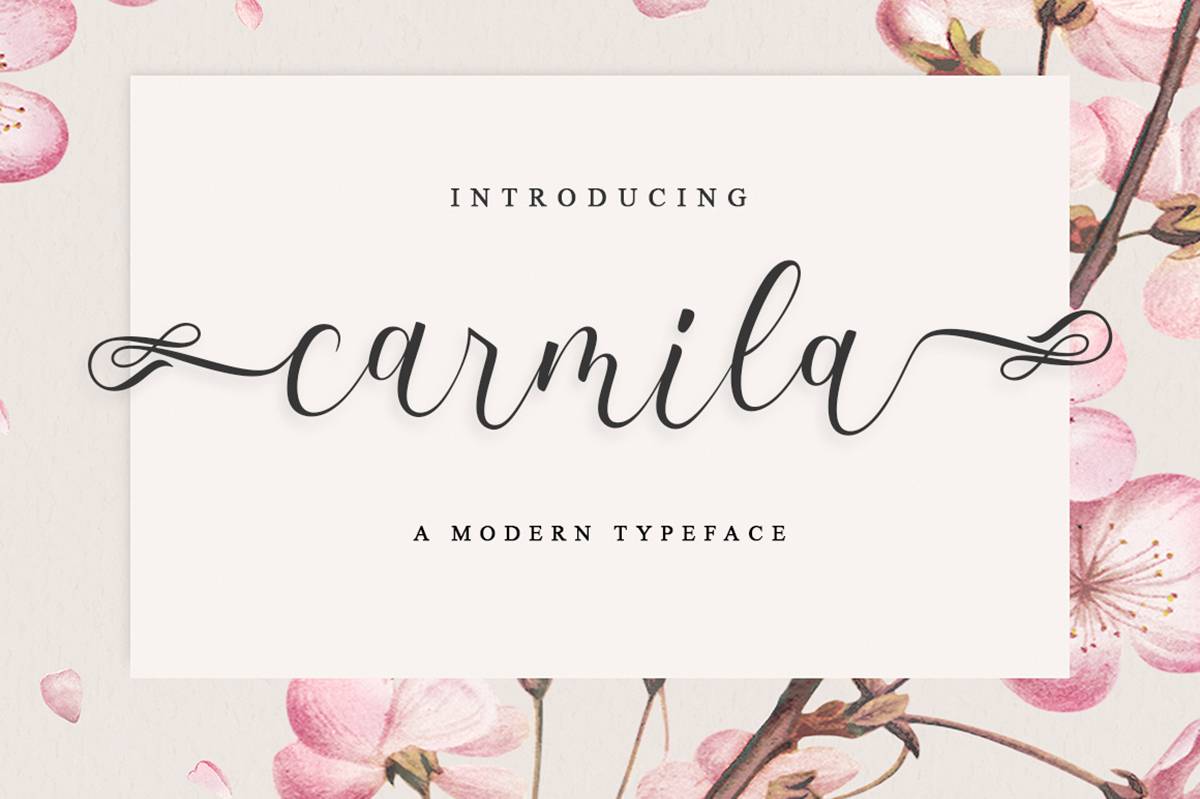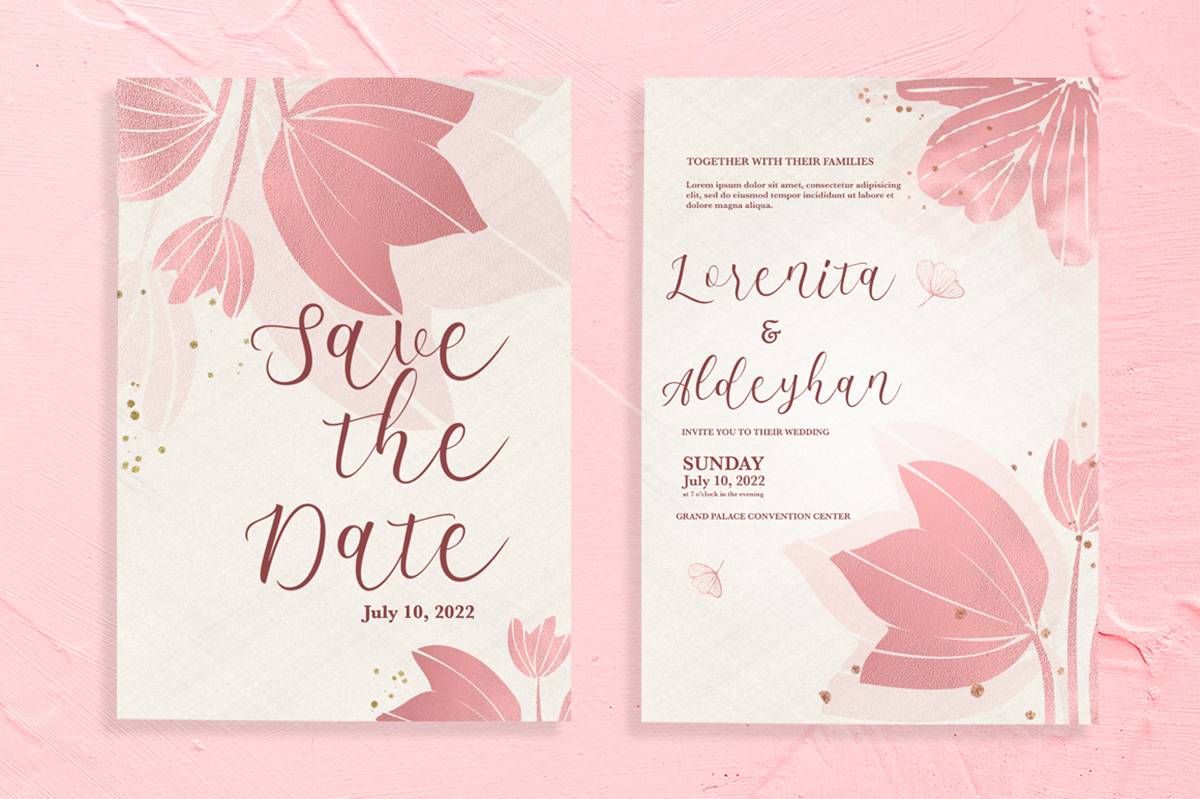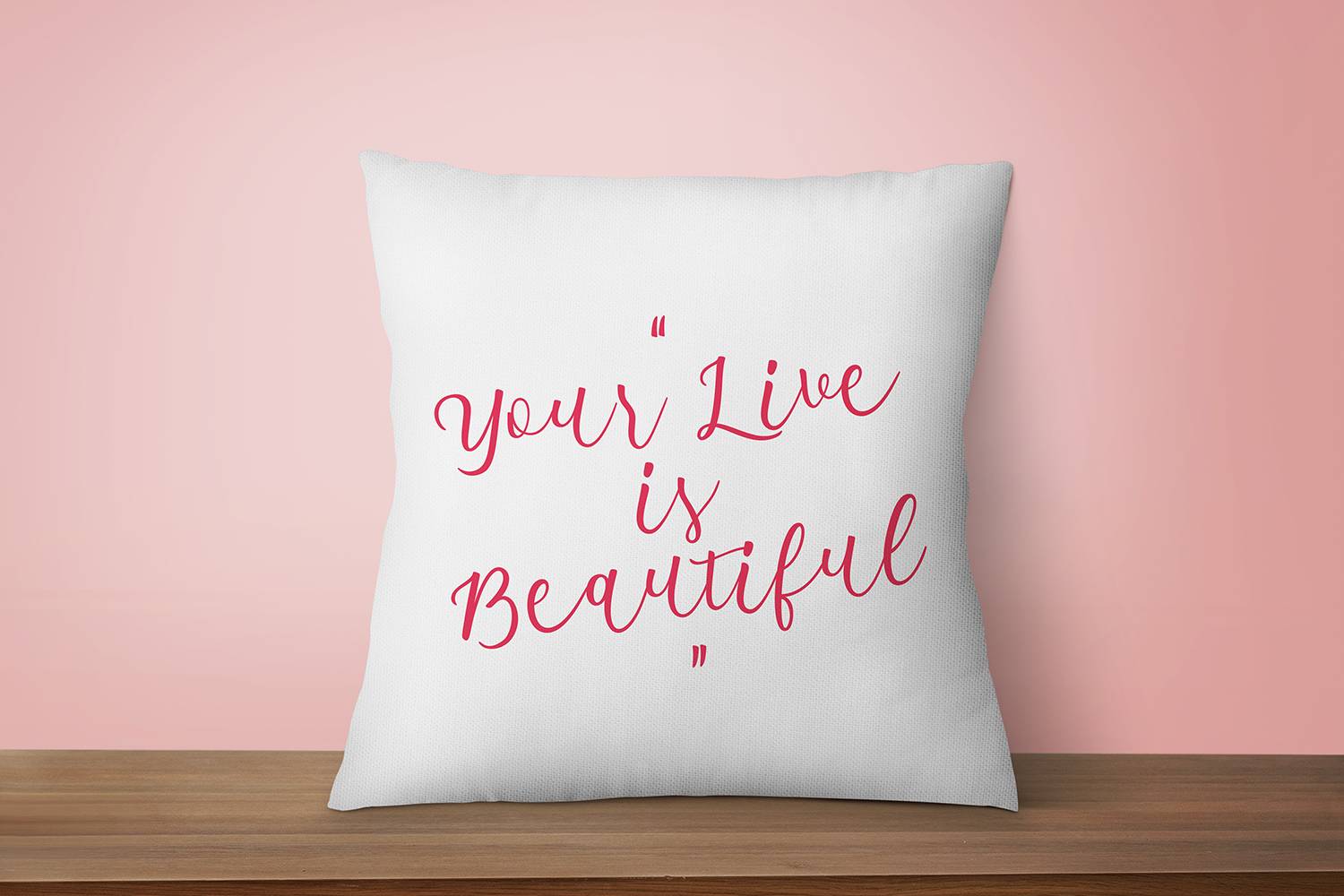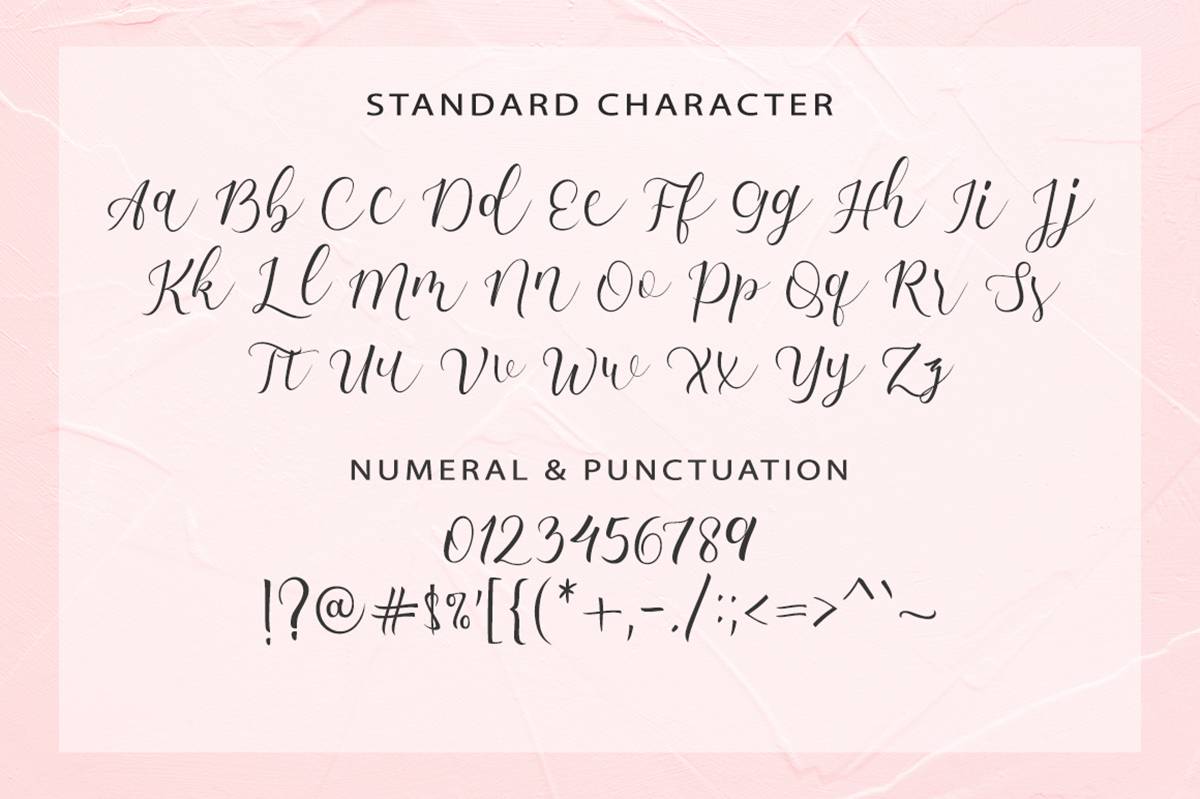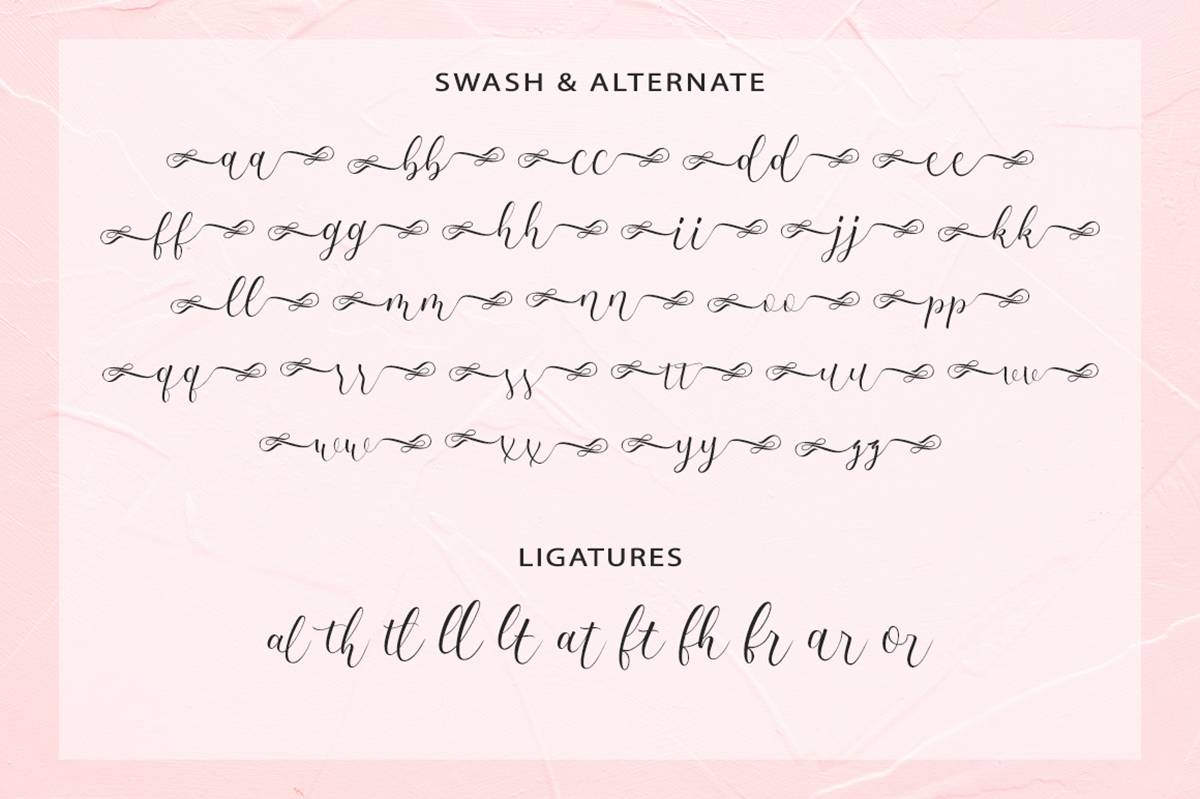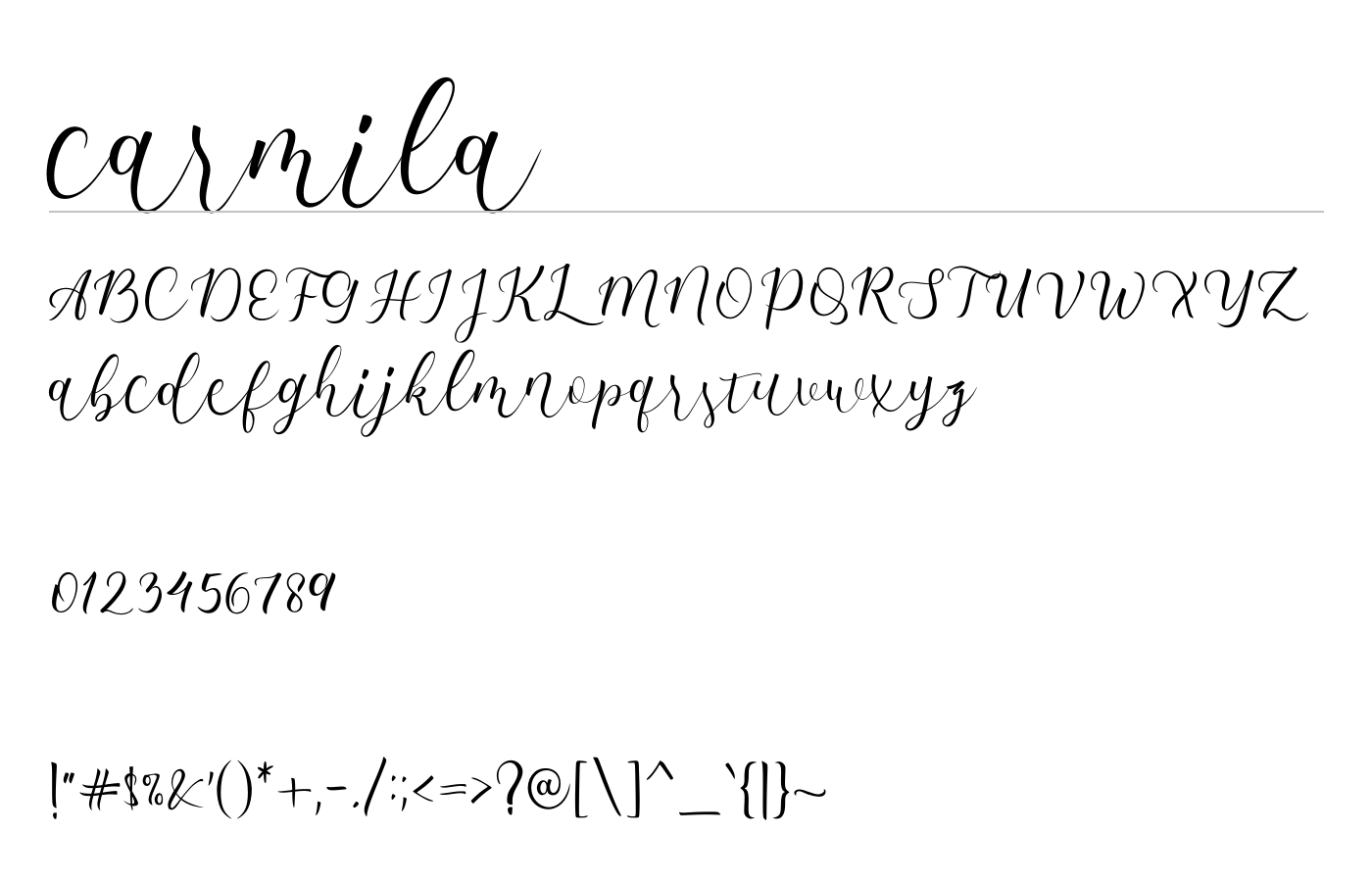
Carmila Script is a delicate and elegant script font characterized by its smooth, flowing strokes and slender letterforms. It combines a graceful handwritten style with refined, slightly varied line thickness that adds a personal and artistic touch, making it perfect for romantic, feminine, or sophisticated branding projects. This font works beautifully in invitations, logos, and packaging where a soft, charming, and stylish feel is desired.
Carmila Script Font
About Carmila Script Font
| Font family | Carmila Script Font |